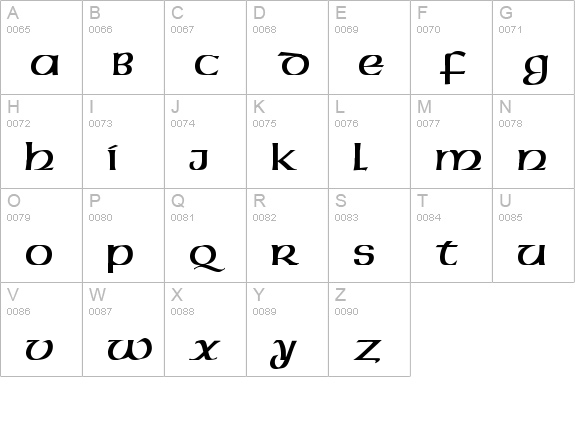
Amuncial Font Details
Amuncial font is a stunning and elegant typeface that exudes sophistication and charm. With its sleek lines and graceful curves, this font is perfect for adding a touch of class to any design project. Whether you're creating a wedding invitation, a business card, or a logo, Amuncial font will elevate your work to the next level. The best part? Amuncial font is available for free download at FontsMarket.com. That's right, you can add this beautiful font to your collection without spending a penny. Don't miss out on the opportunity to enhance your designs with the timeless beauty of Amuncial font. Download it today and start creating stunning works of art that will leave a lasting impression.